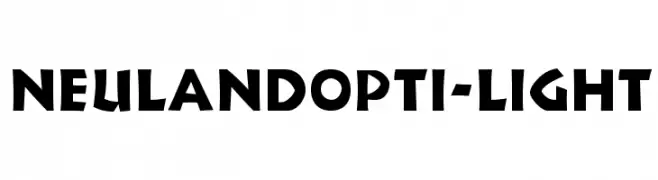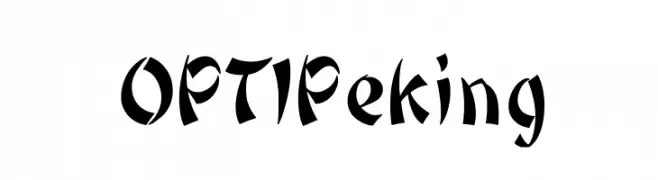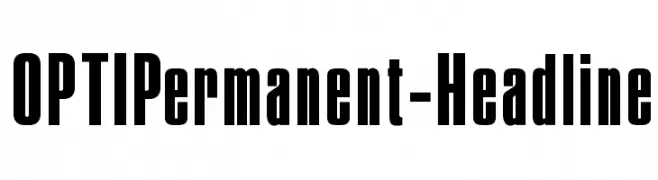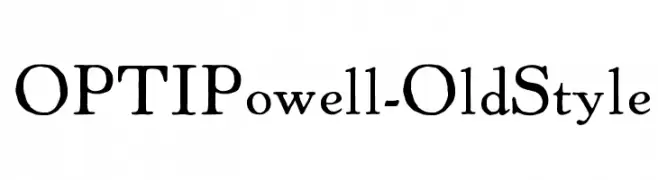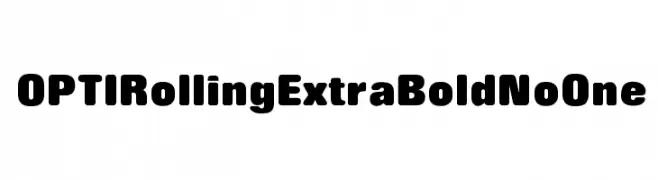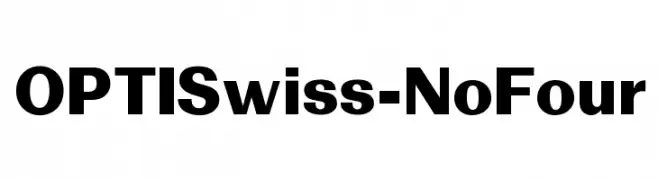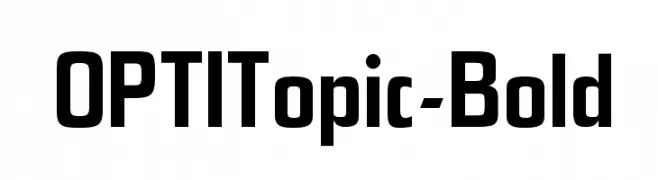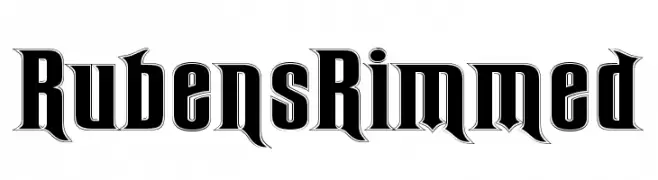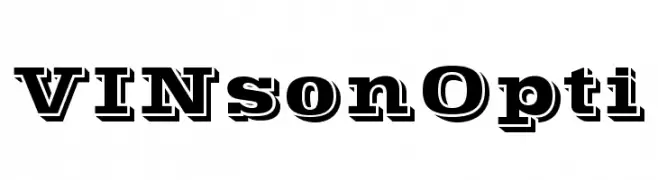
A bold, sans-serif font with a modern and assertive style.
A bold, modern font with clean lines and a professional appearance.
A bold, high-contrast font with a dramatic and commanding style.
A bold, modern font with strong geometric shapes and clean lines.
A bold, high-contrast font with sharp, angular strokes and a calligraphic influence.
A classic serif font with elegant strokes and a traditional, timeless appeal.
A bold, condensed font with strong vertical emphasis, perfect for headlines.
A bold, geometric font with sharp edges and a condensed form for impactful text.
A bold, rounded font with thick strokes and a strong presence.
A bold, decorative font with a shadow effect for a three-dimensional look.